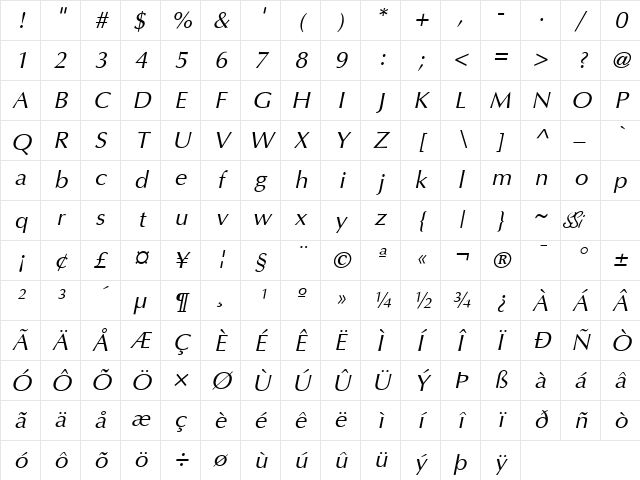
Interface SSi Italic
Design Context for Interface SSi
Interface SSi is a composed and adaptable typeface that performs quietly and consistently across a wide range of design contexts. The slanted form adds forward momentum and visual energy.
Pro Tip: Use Interface SSi for emphasis, pull quotes, and subheadings where its slanted energy can add rhythm to the layout.